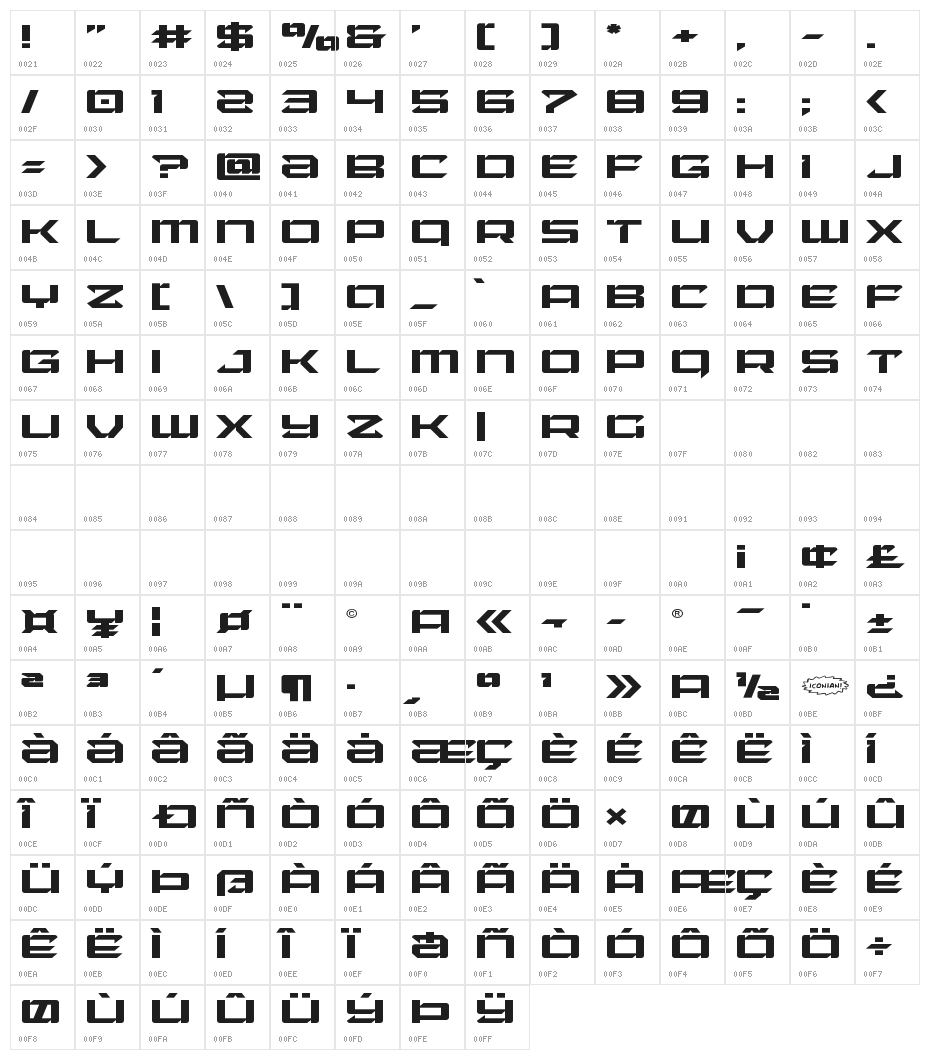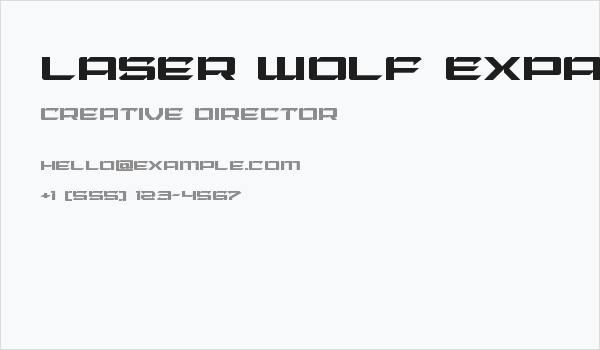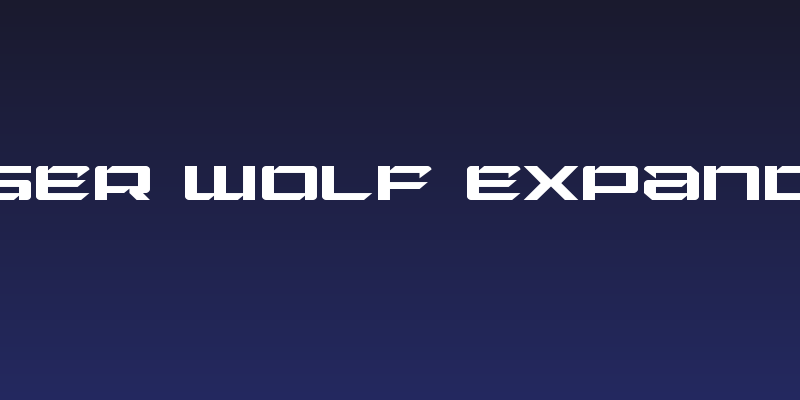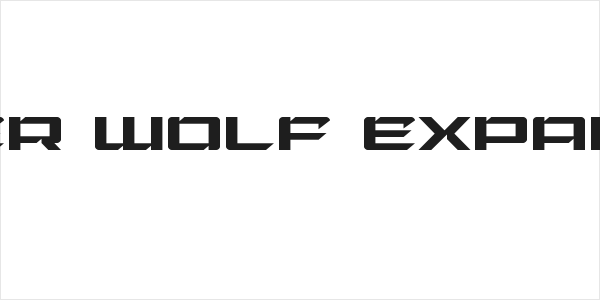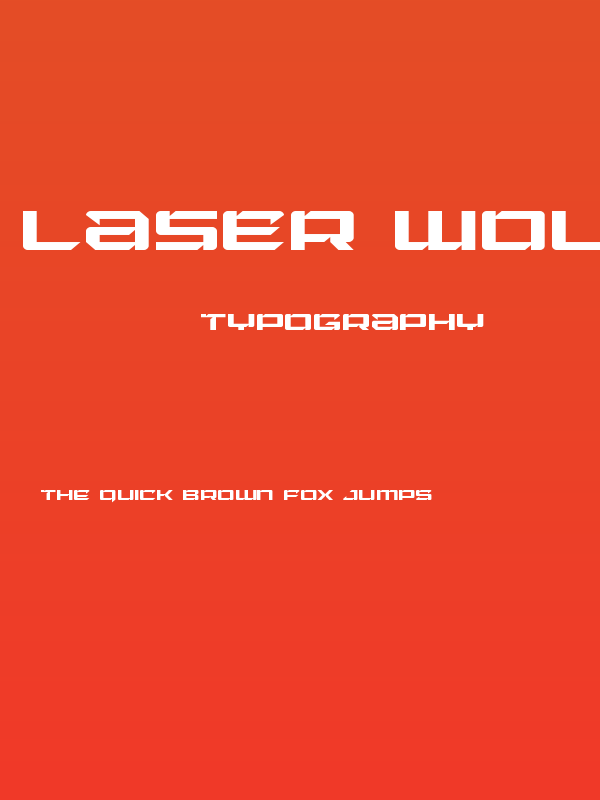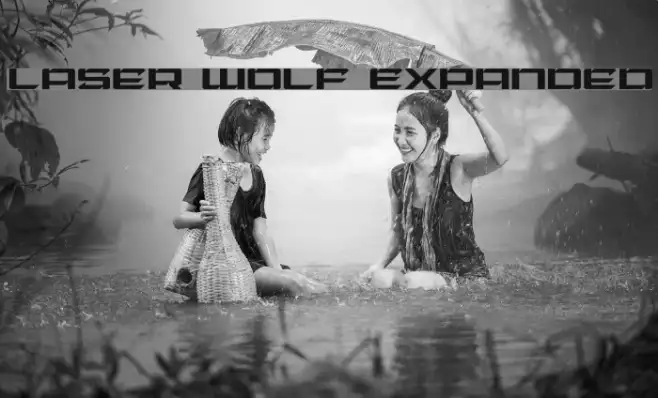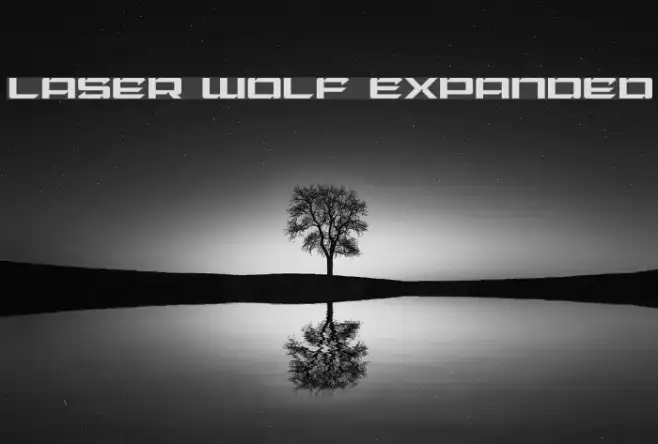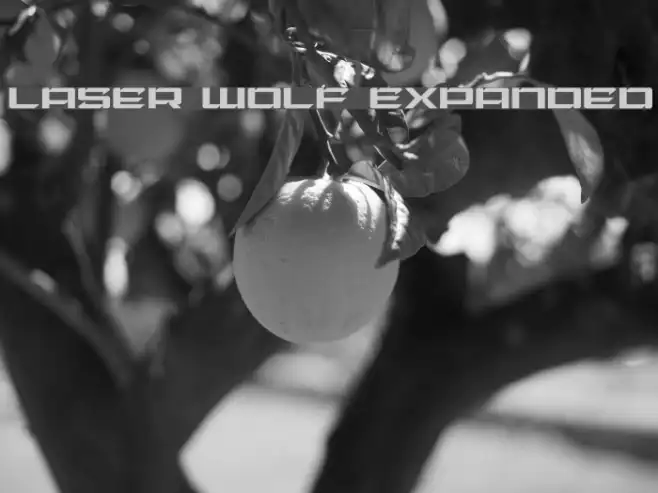
Laser Wolf Expanded Font
Laser Wolf Expanded Description
This font features a futuristic and geometric design, characterized by sharp angles and a bold presence. The uppercase and lowercase letters maintain a consistent style, with a unique angular cut that gives it a modern and edgy appearance. The numerals and special characters follow the same design principles, ensuring uniformity across all glyphs. The font's expanded width and distinct style make it stand out, ideal for projects that require a strong visual impact.
| Proposed Projects | Ideal for sci-fi themed designs, video game titles, tech branding, and futuristic posters. |